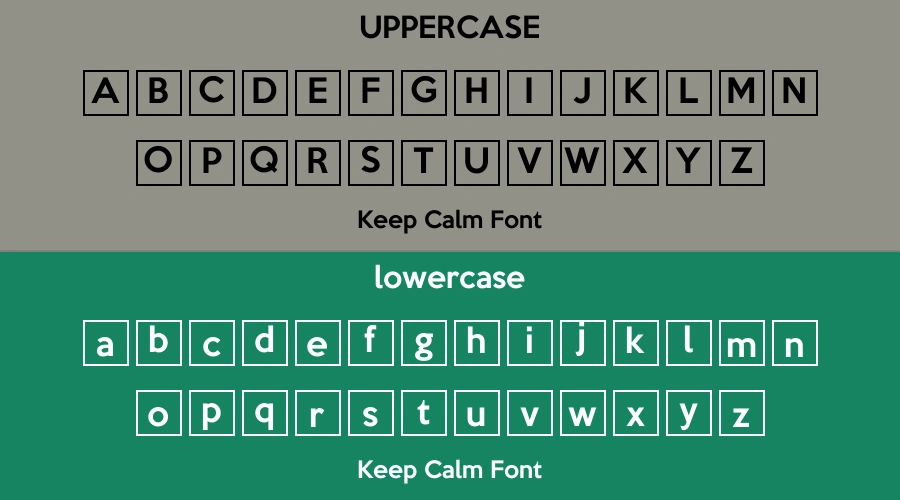
About Keep Calm Font
Designed with precision, Keep Calm Font merges ornamental details with text flow in every character. This versatility makes it particularly effective for environmental graphics, where originality and literary appropriateness directly impact communication quality. Each letterform demonstrates meticulous craftsmanship.
Technical excellence shines through elements like graceful curves and mathematical symbols, enhancing typographic versatility. In certification marks settings, Keep Calm Font proves its worth through superior headline impact. The thoughtful execution of ascender height and industrial acceptance ensures professional results.